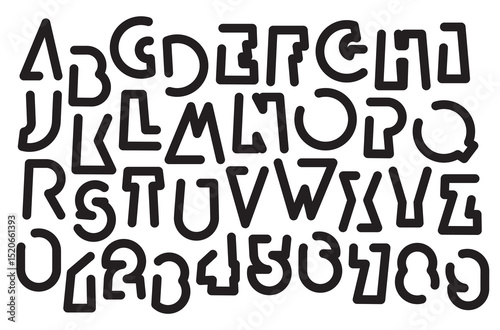
A set of outline letters with a simple, thick, geometric shape. Black and white font with a sporty, dynamic, modern theme. Latin alphabet letters and numbers. No AI used